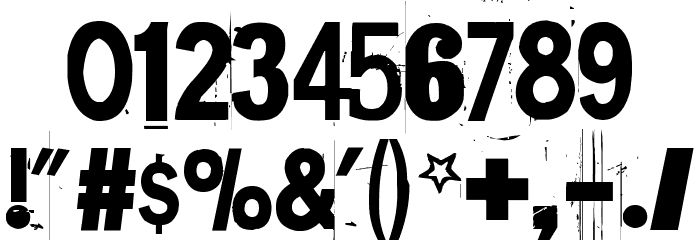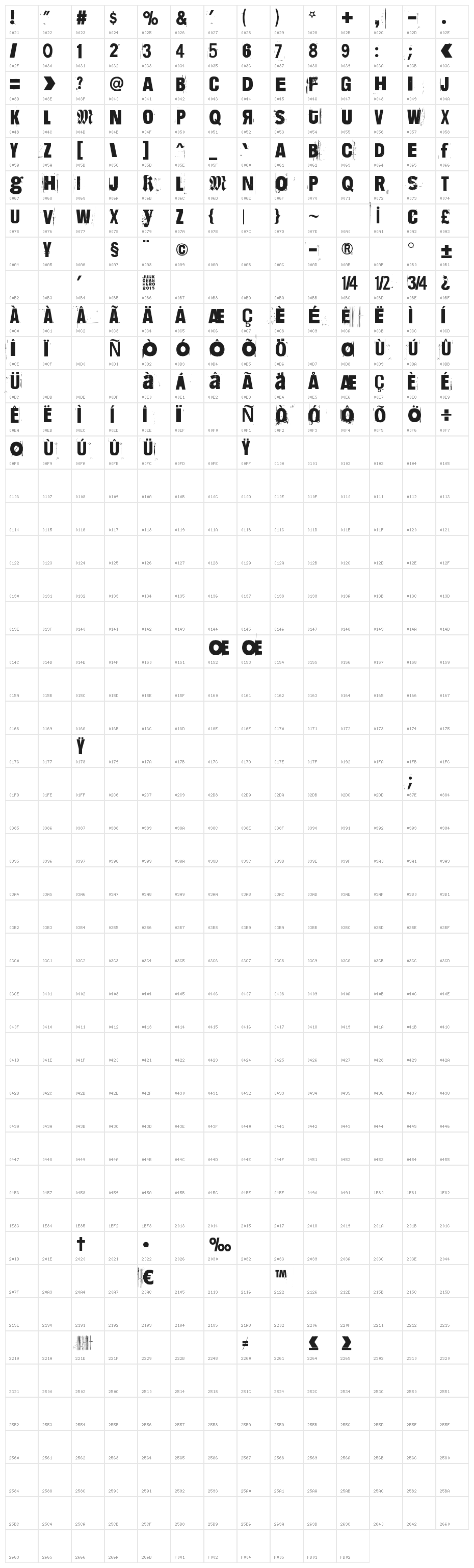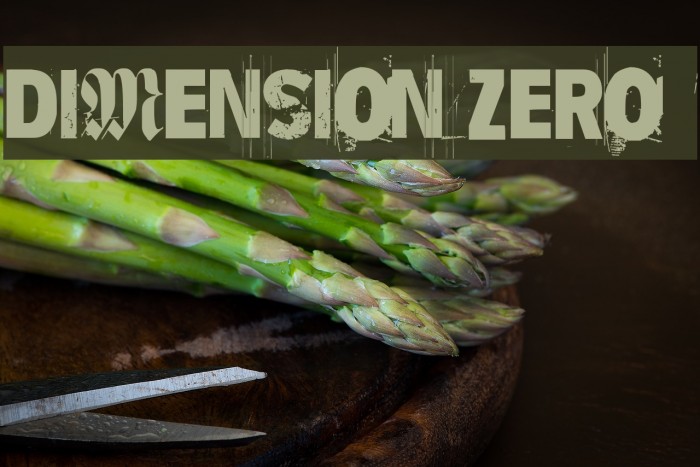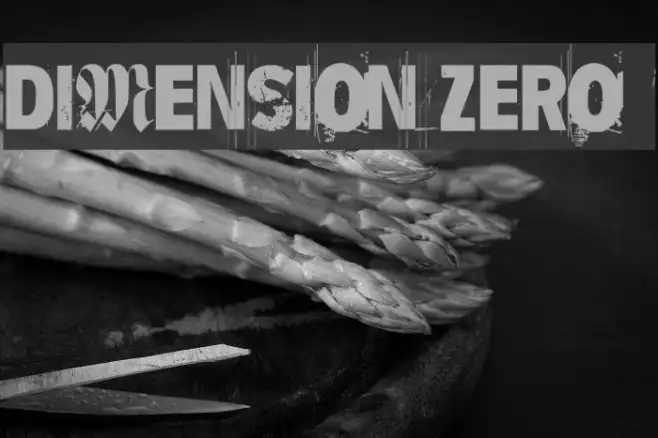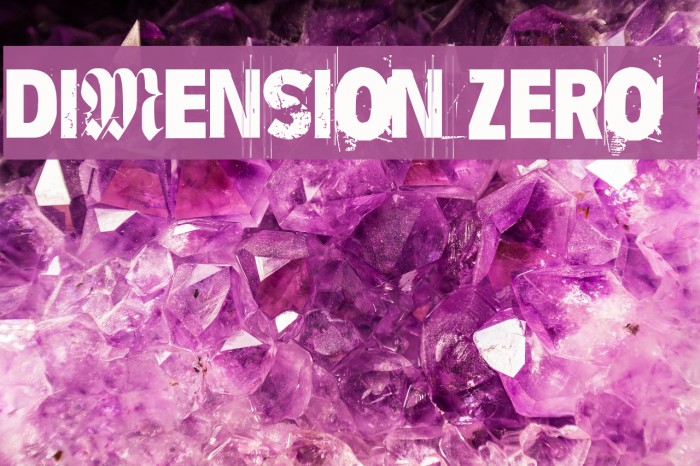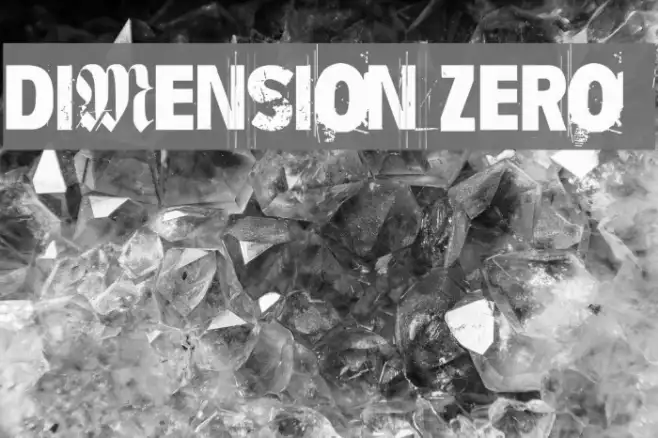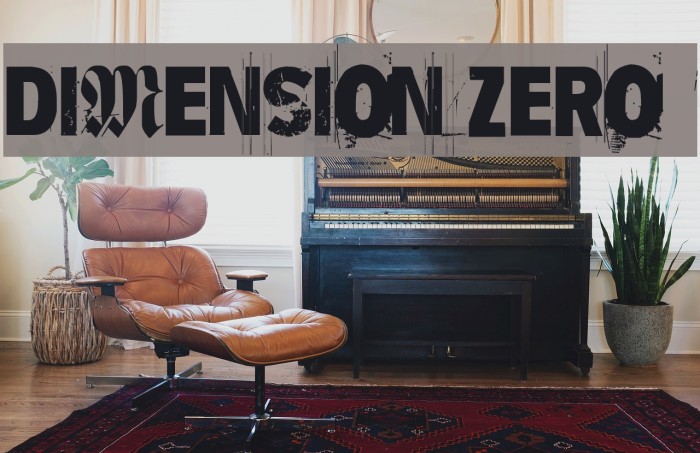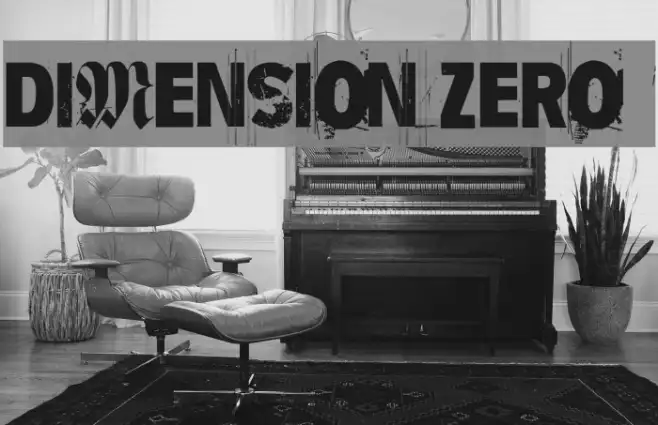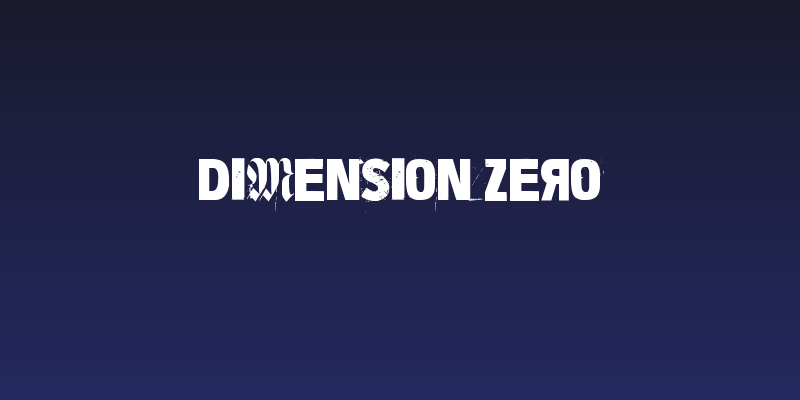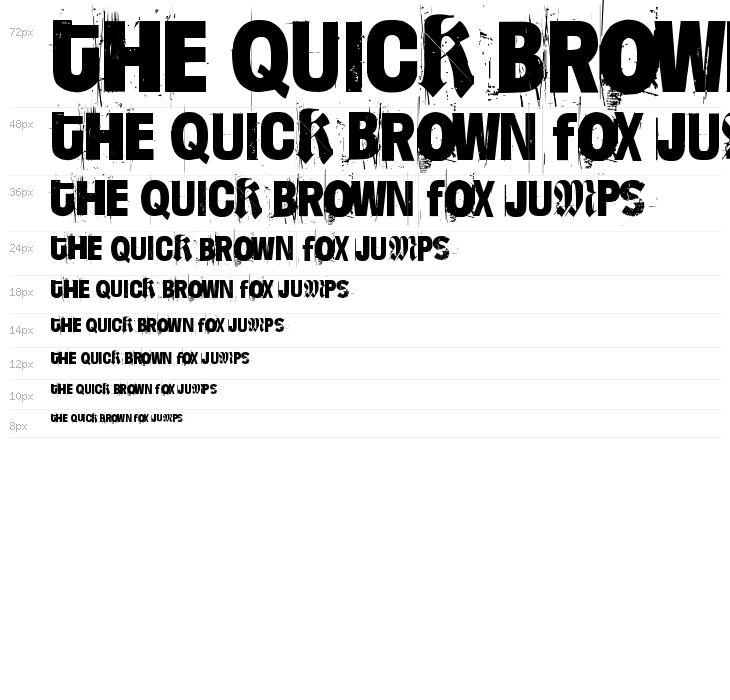
Dimension Zero Font
Dimension Zero Description
This font features a bold and distressed style, characterized by its heavy, block-like letters with a grunge texture. The uppercase letters are robust and commanding, while the lowercase letters maintain a consistent weight, adding to the overall impact. The numbers and special characters follow the same distressed aesthetic, making them ideal for designs that require a rugged, edgy look. The font's unique texture gives it a worn, vintage feel, suitable for projects that aim to convey a sense of rebellion or urban grit. Its boldness ensures high visibility, making it perfect for attention-grabbing headlines or logos.
| Overall Style | Grunge, Urban, Vintage |
| Proposed Projects | Perfect for album covers, posters, streetwear branding, and event flyers. |